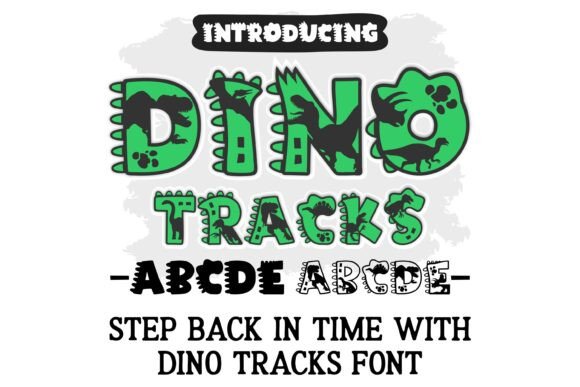
Dino Tracks Font: Unleash Prehistoric Creativity in Your Designs
The Dino Tracks Font Duo is a revolutionary 2-in-1 prehistoric-inspired typeface that’s taking the crafting and design world by storm. Perfect for use with Cricut, Silhouette, and DIY crafting, this unique duo font is designed to transport your creations back to the Jurassic era. With two distinct styles to choose from, you’ll be able to add a touch of playful dinosaur magic to any project.
What is the Dino Tracks Font Duo?
The Dino Tracks Font Duo is a carefully crafted pair of fonts that work in harmony to bring your designs to life. The first font features playful dinosaur silhouettes and fossil details, adding a whimsical touch to your creations. The second font boasts a bold, spiky dino letter style that’s sure to make a statement. Whether you’re designing kids’ birthday party decorations, adventure books, nursery prints, T-shirts, or custom projects, this font duo is the perfect tool to unleash your creativity.
Key Features of the Dino Tracks Font Duo
- 2-in-1 font duo: Includes two distinct styles to suit your design needs
- Prehistoric-inspired: Features dinosaur silhouettes, fossil details, and Jurassic-inspired textures
- Playful and bold: Combines playful dinosaur silhouettes with bold, spiky dino letter styles
- Layered designs: Works perfectly together for mixed typography and eye-catching graphics
Endless Design Possibilities with Dino Tracks Font
The versatility of the Dino Tracks Font Duo knows no bounds. With these two fun fonts, you can create a wide range of designs that are sure to captivate your audience. Here are just a few ideas to get you started:
Kids’ Birthday Party Decorations
Create a roaring good time with custom birthday party decorations featuring the Dino Tracks Font Duo. Design personalized banners, invitations, and party hats that will make your little one’s special day even more memorable.
Adventure Books and Nursery Prints
Add a touch of prehistoric magic to your adventure books and nursery prints. The Dino Tracks Font Duo is perfect for illustrating dinosaur-themed stories or creating educational materials that will delight children and parents alike.
T-Shirts and Custom Apparel
Take your custom apparel to the next level with the Dino Tracks Font Duo. Design bold, eye-catching T-shirts, hoodies, and hats that are sure to make a statement.
Why Choose the Dino Tracks Font Duo?
With so many fonts available, why choose the Dino Tracks Font Duo? Here are just a few reasons why this font duo stands out from the rest:
Unique and Playful Design
The Dino Tracks Font Duo offers a unique and playful design that’s sure to capture the imagination of your audience. The combination of dinosaur silhouettes, fossil details, and bold, spiky letter styles makes for a truly one-of-a-kind font duo.
Easy to Use
Tips and Tricks for Using the Dino Tracks Font Duo
Here are a few tips and tricks to help you get the most out of the Dino Tracks Font Duo:
Experiment with Layered Designs
Try experimenting with layered designs to create unique and eye-catching graphics. Use the playful dinosaur silhouettes and fossil details to add depth and interest to your designs.
Mix and Match Fonts
Don’t be afraid to mix and match the two fonts to create a unique look. The bold, spiky letter style pairs perfectly with the playful dinosaur silhouettes, creating a truly prehistoric-inspired design.
Use Jurassic-Inspired Textures
Add an extra touch of prehistoric magic to your designs with Jurassic-inspired textures. Use fossil imprints, dinosaur spikes, and other textures to bring your creations to life.
The Dino Tracks Font Duo is a powerful tool for any designer or crafter looking to add a touch of prehistoric magic to their creations. With its unique and playful design, ease of use, and compatibility with popular design tools, this font duo is sure to become a favorite. So why wait? Download the Dino Tracks Font Duo today and start creating your own prehistoric-inspired designs!